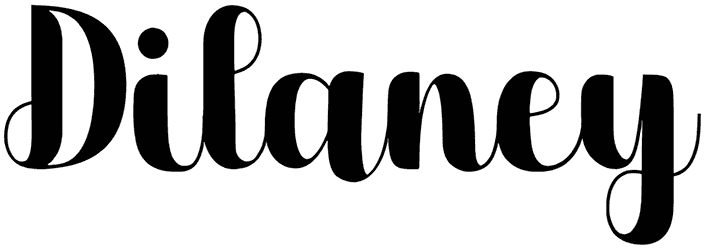
Dilaney Font
Painting with Dilaney, a fresh script font which is inspired by the play of brush on paper, can have sweet consequences to bring organic and natural elements to your typography design.